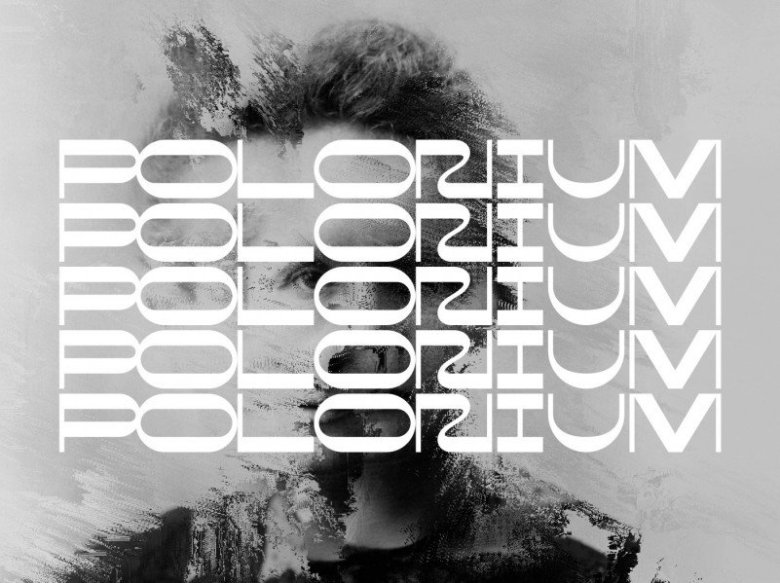
Polonium Font
Polonium Font is a display font inspired by the story of polonium discovery in 1898 by Marie and Pierre Curie. A font that also has a bit of a classic feel so it’s quite unique to support your modern design, you can also for corporate designs so this font is very flexible for today’s designs.